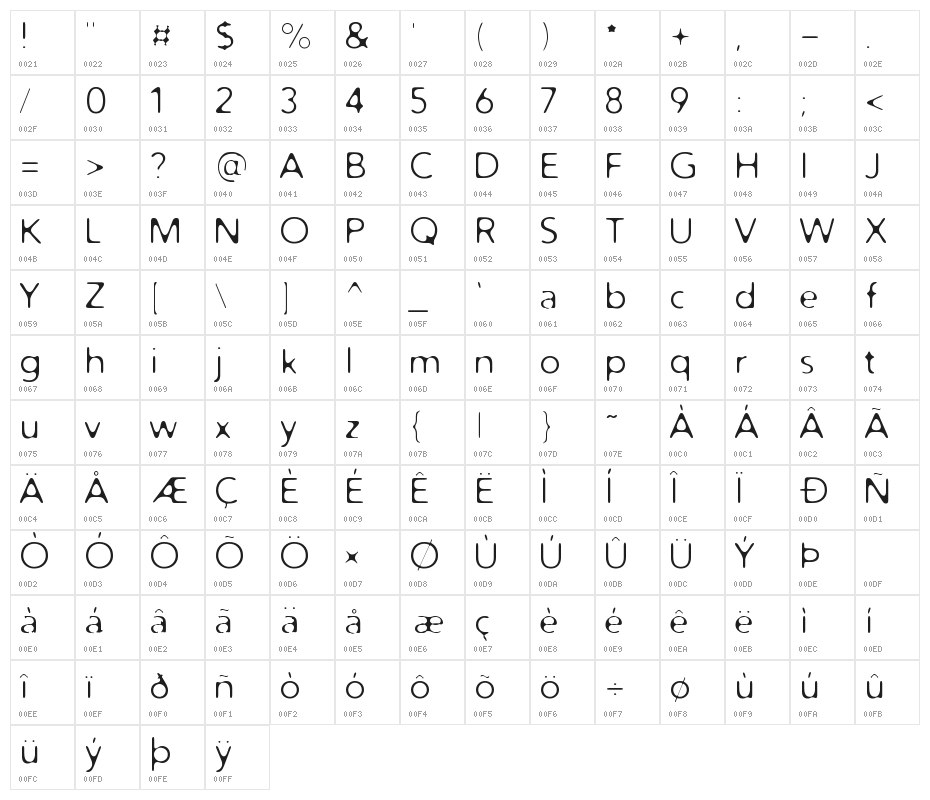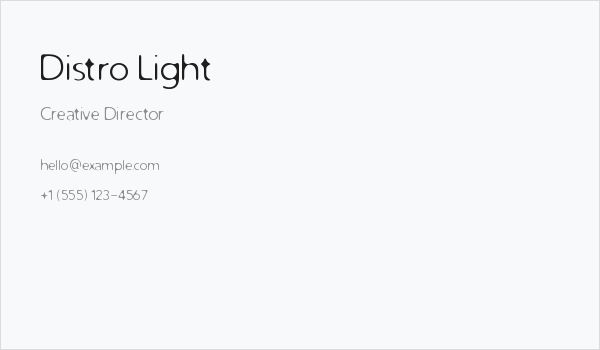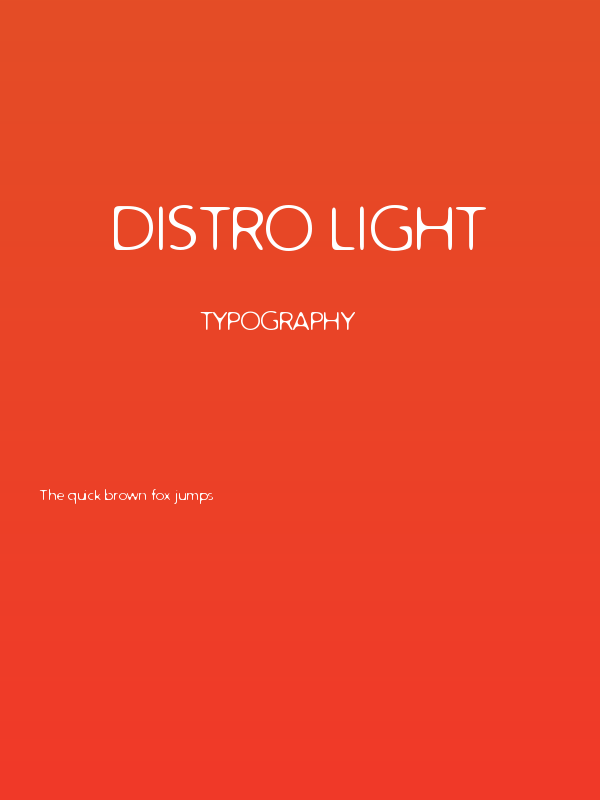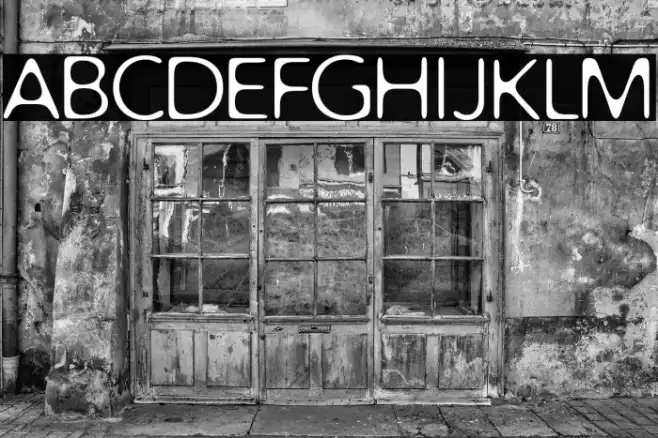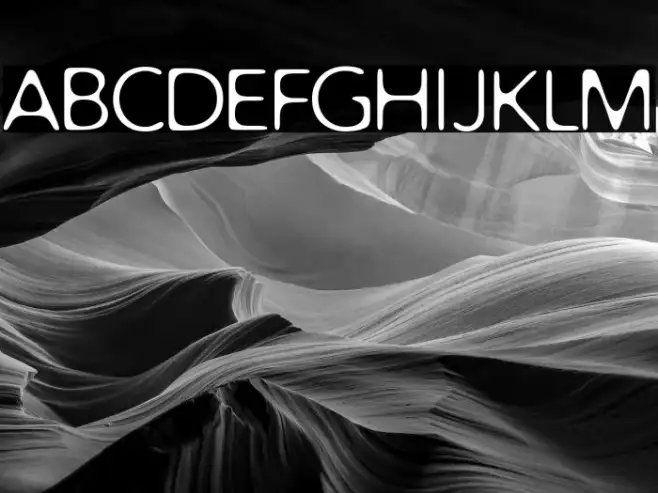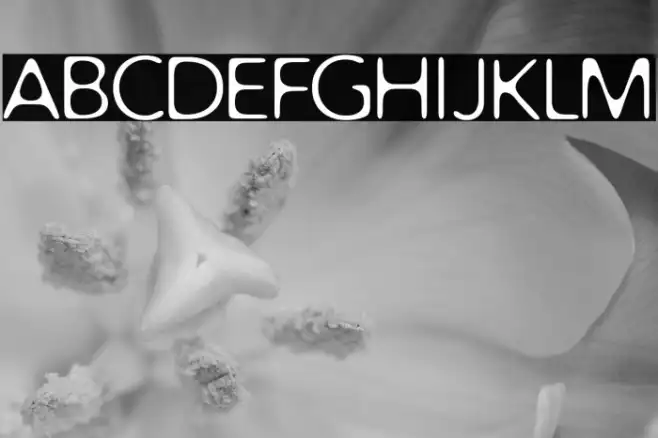
Distro Light Font
Distro Light Description
This font features a unique and modern design with a playful twist. The characters are rounded with a slight tapering at the ends, giving them a distinctive look. The uppercase letters are bold and prominent, while the lowercase letters maintain a consistent flow with subtle curves. The numbers are clear and legible, with a similar rounded style. Special characters are creatively designed, adding to the font's overall charm. This font is perfect for projects that require a touch of creativity and modernity.
| Proposed Projects | Ideal for branding, advertising, and creative projects that need a modern and playful touch. |